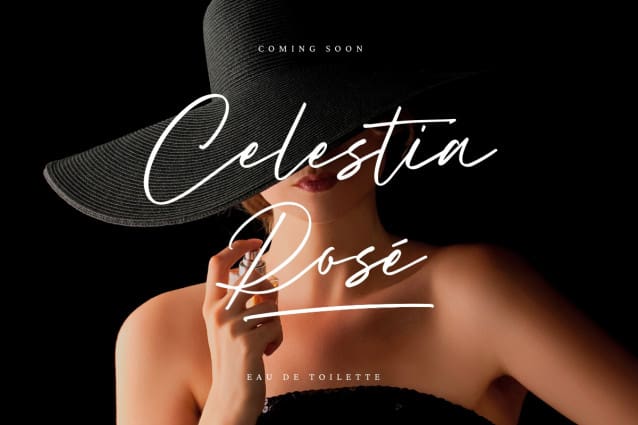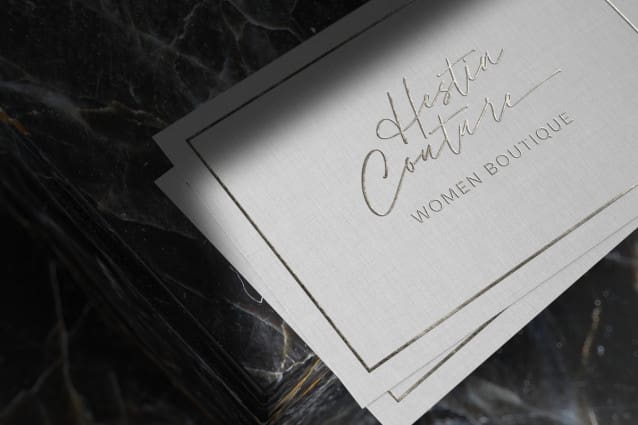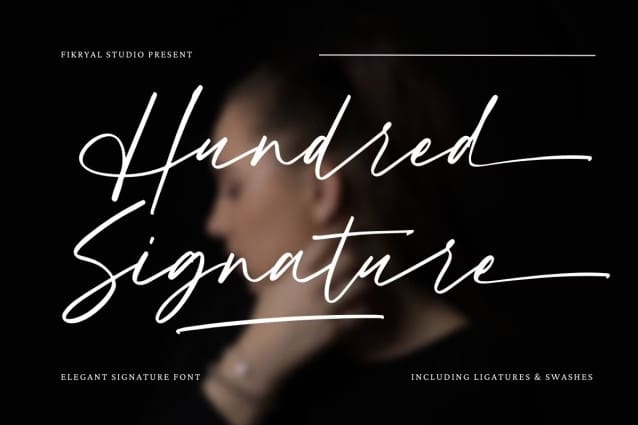
Hundred Signature Font
Hundred Signature Font is a elegant signature font that exudes elegance and sophistication. It is a handwritten script font with a unique, stylish design that is perfect for branding, logos, business cards, invitations, and other high-end design projects. The font features thin, delicate lines with subtle curves and loops, giving it a refined and timeless feel.
The font includes uppercase and lowercase letters, numbers, punctuation, and multilingual support, making it versatile for use in different languages and contexts. It also comes with alternate characters and ligatures, allowing you to create custom and personalized designs.
Whether you’re designing for a luxury fashion brand or a high-end wedding invitation, “Hundred Signature” will add a touch of elegance and class to your designs.